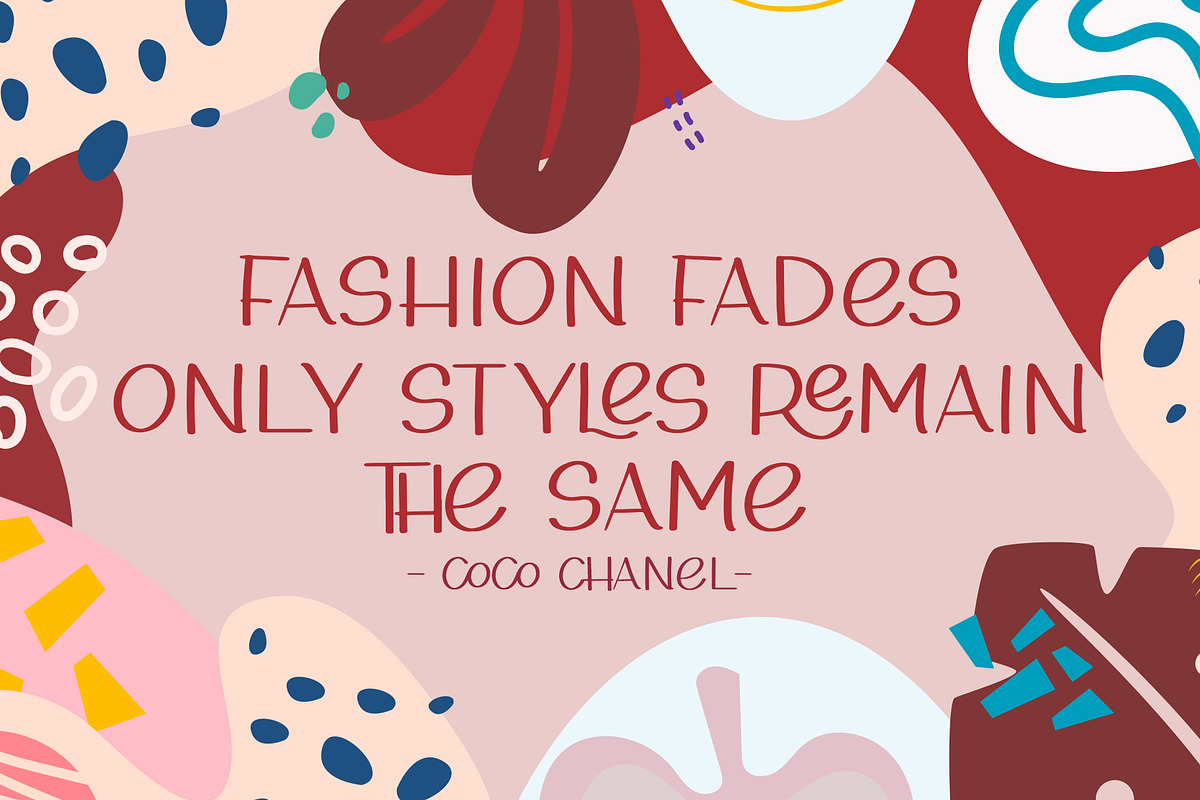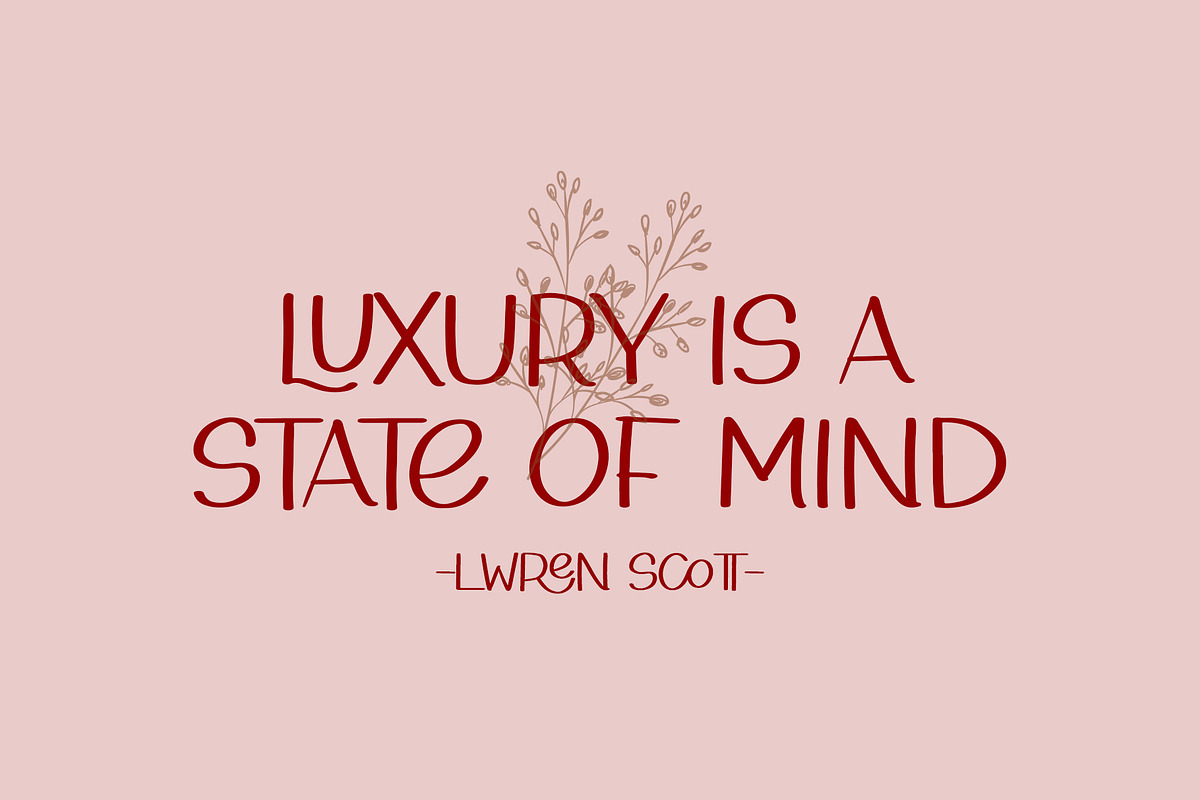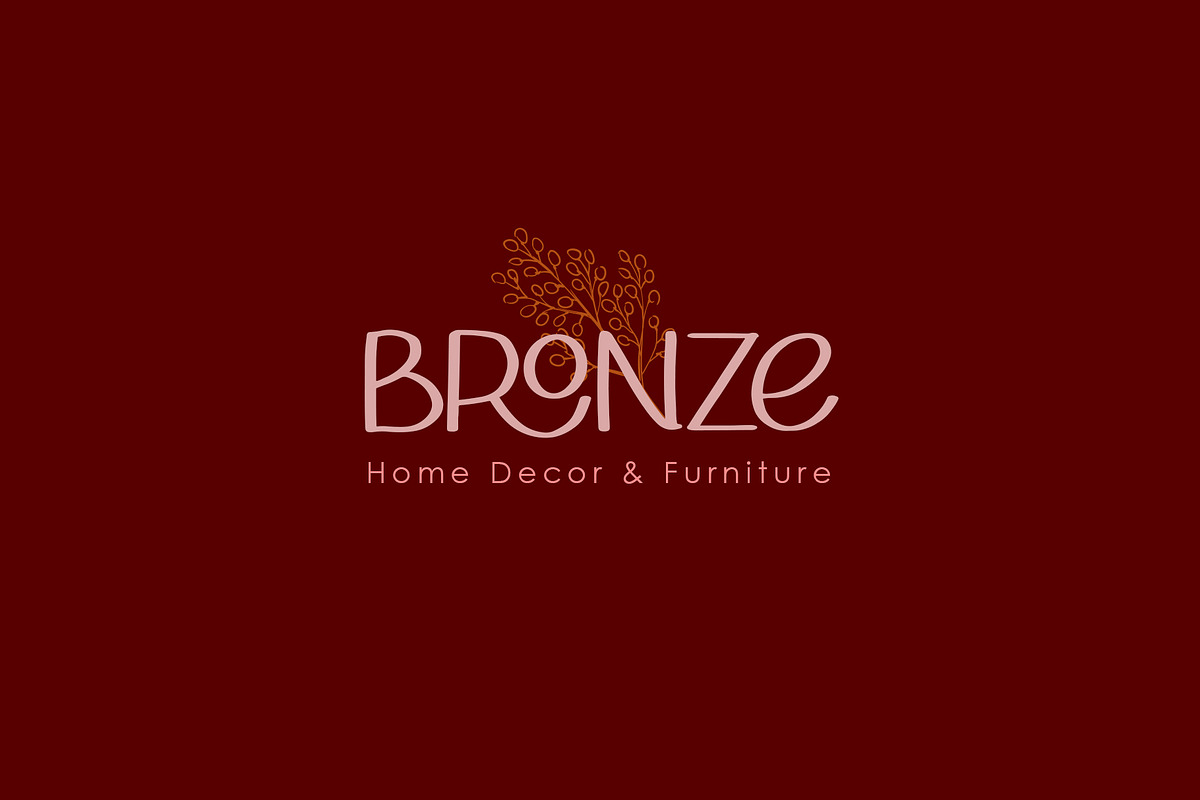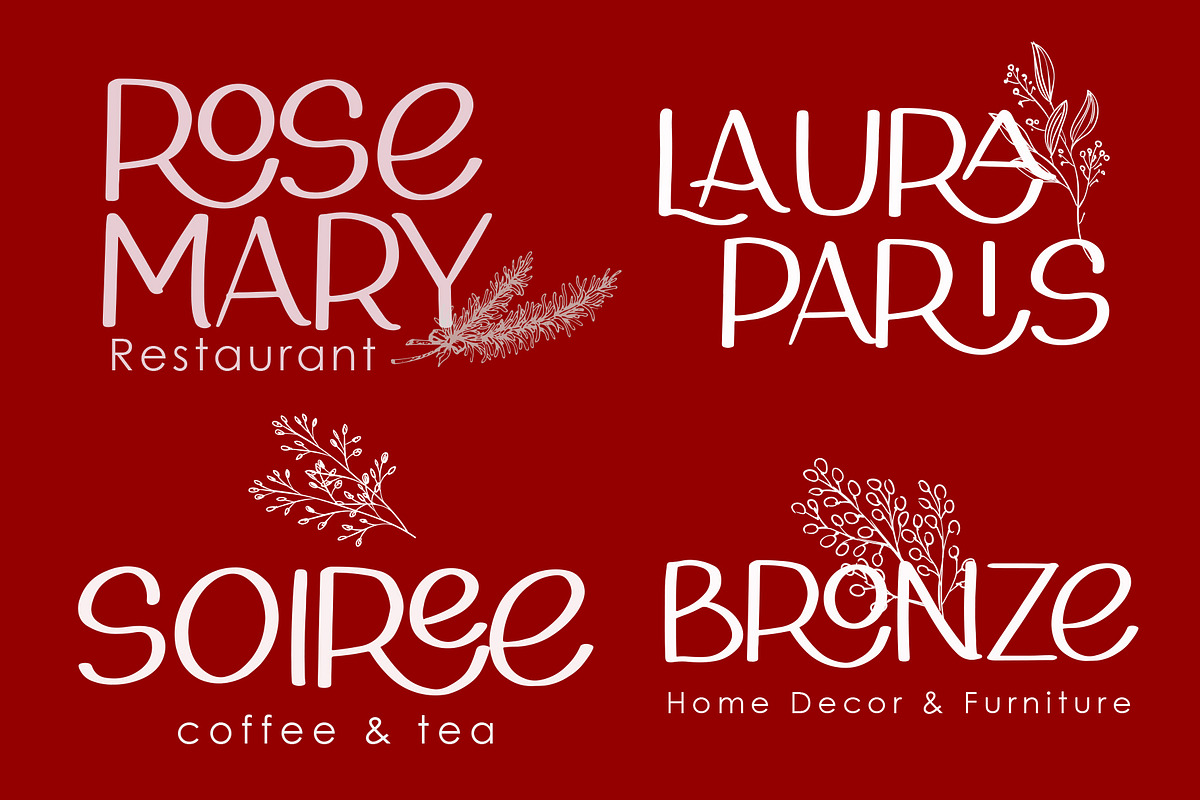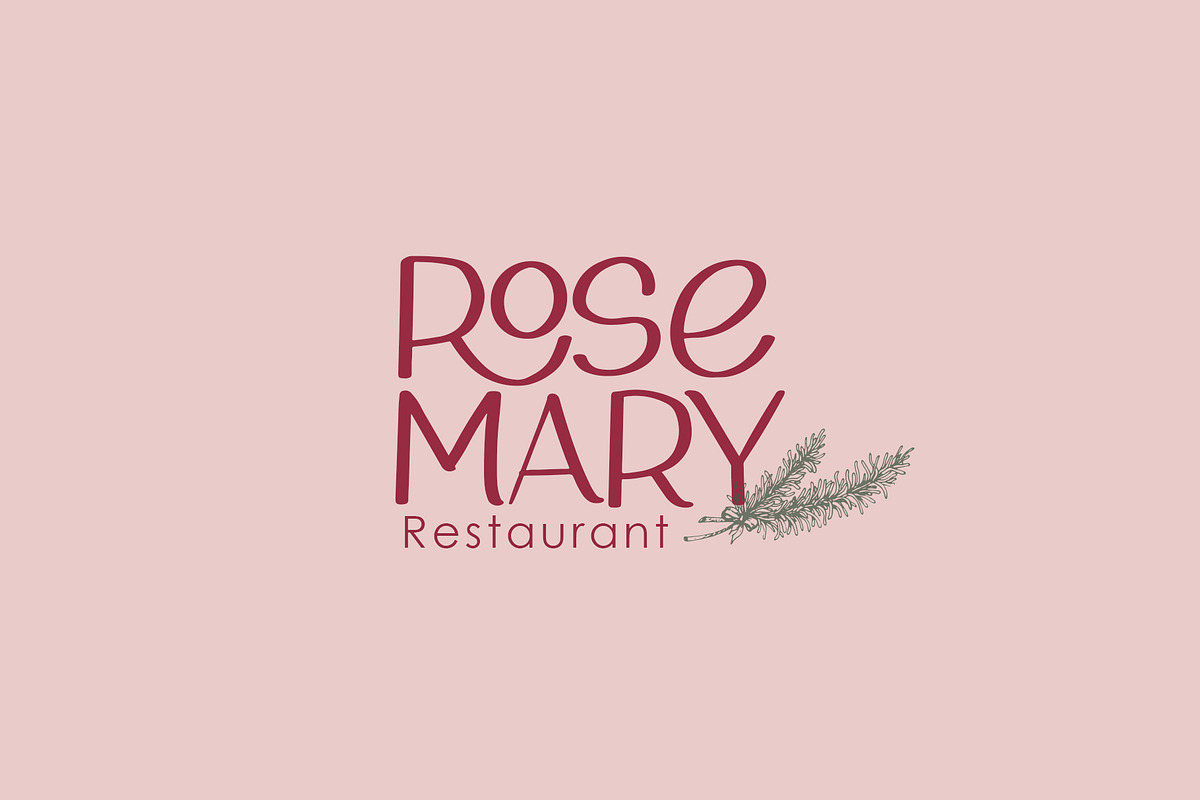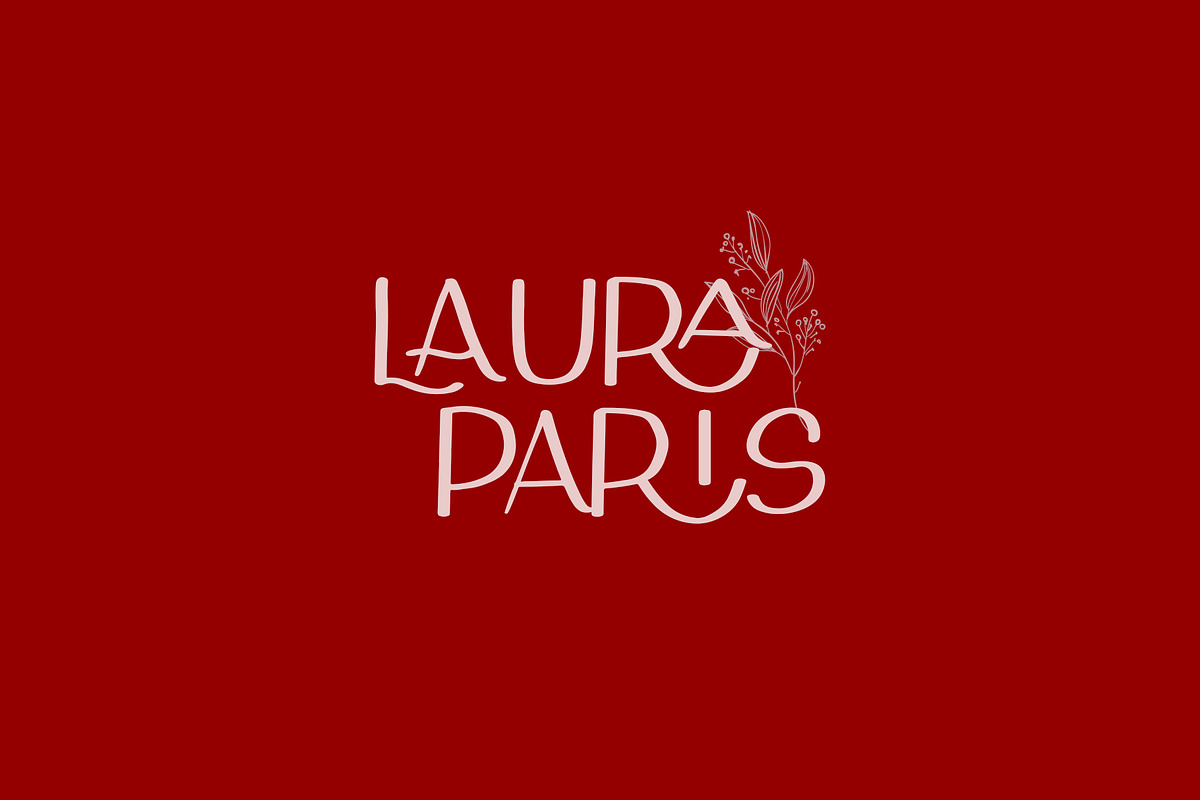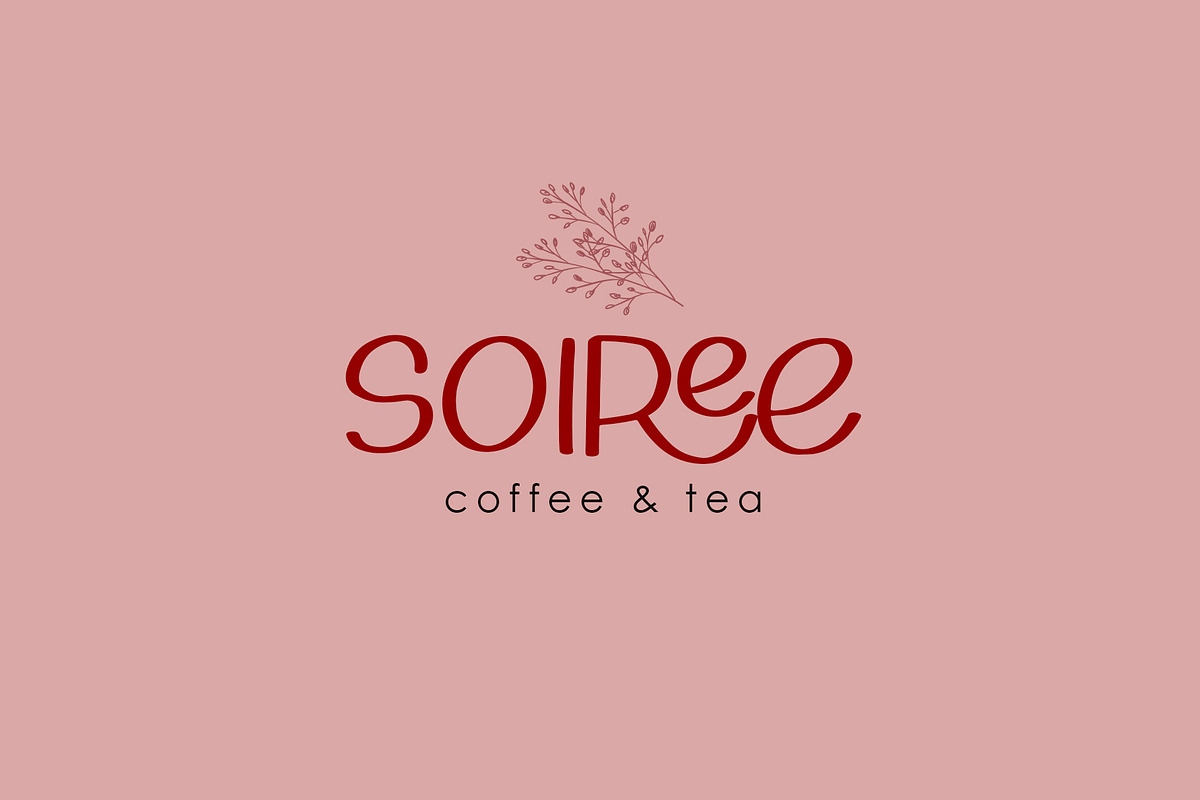
La Rosie - Stylish Handwritting Font
Introducing, the stylish, casual, with modesty feel handwritten font : La Rosie.
It's minimalist, yet elegant and versatiles for branding, logos, quotes, business, packaging, magazines, blogs, clothing, or stylish typography. Including stylish ligatures.
Uppercase Ligatures ( CH, CO, CK, DD, KU, KA, KE, KI, KO, LL, LI, LA, LO, LO, LE, LU, OC, OO, OG, RI, RA, RO, RR, RE, RU, QO, TT, TH )